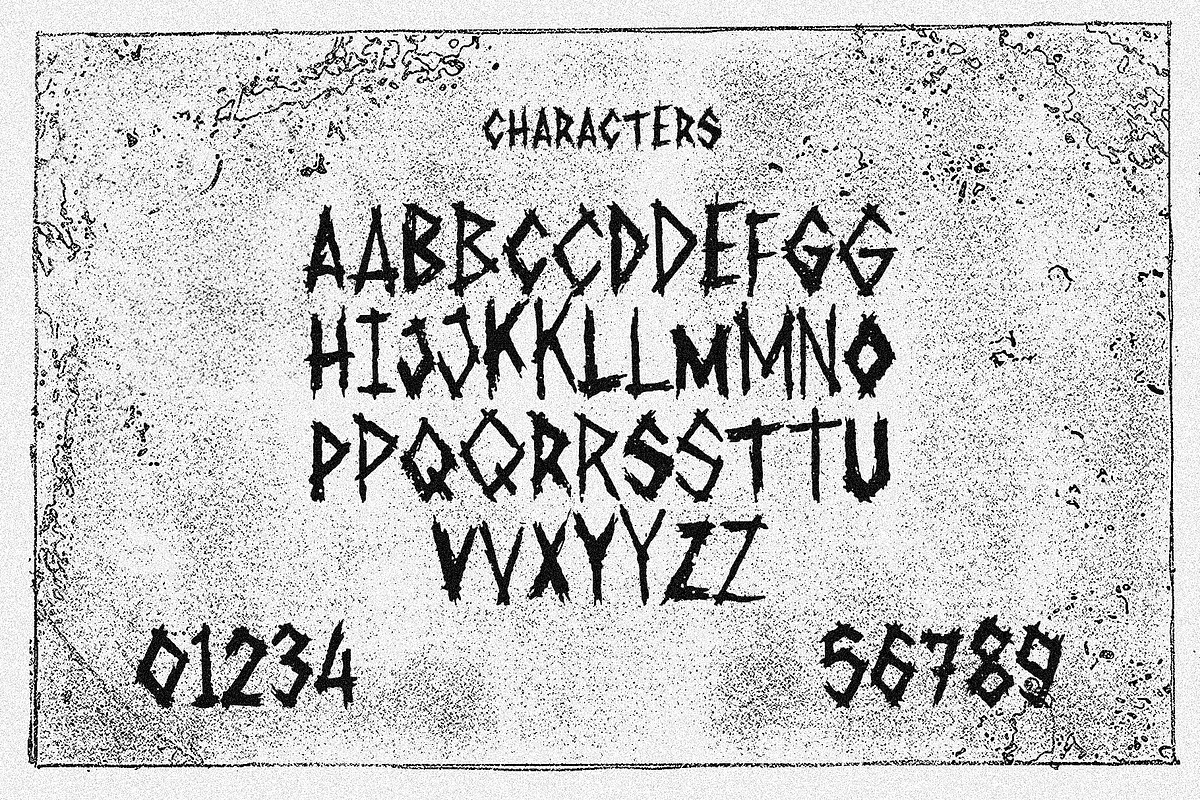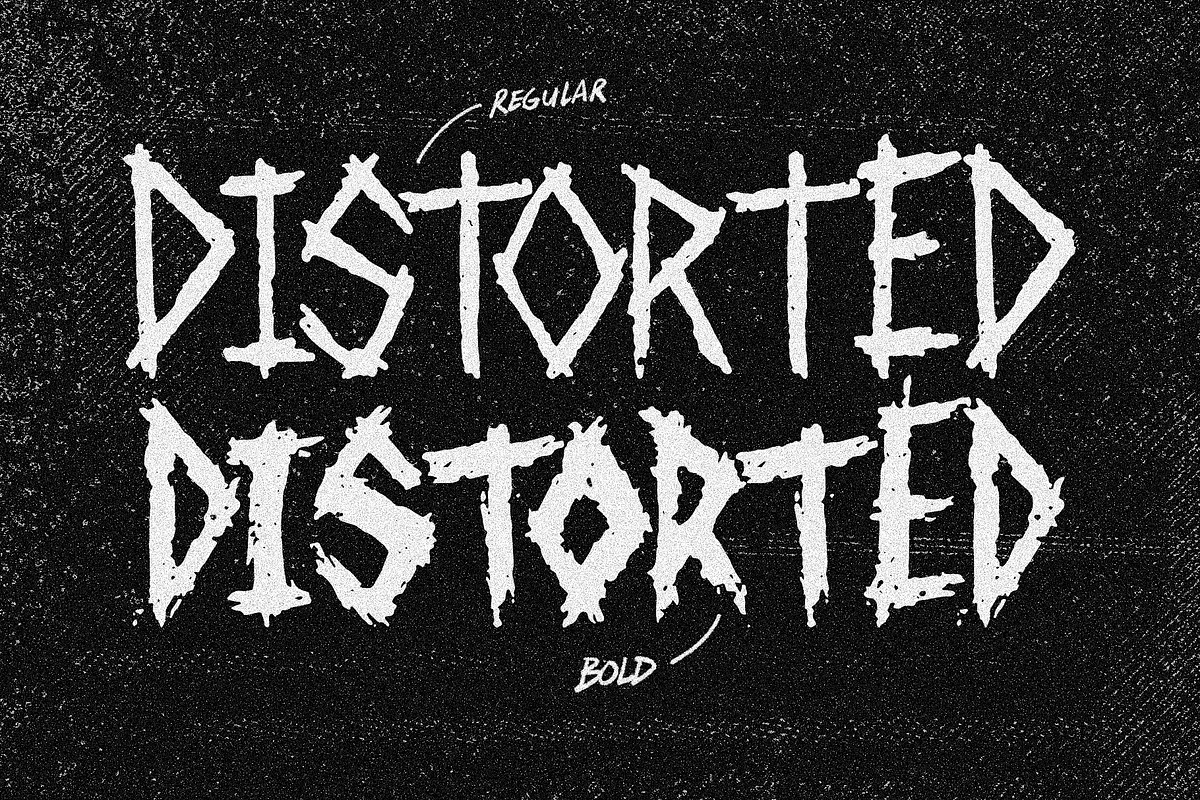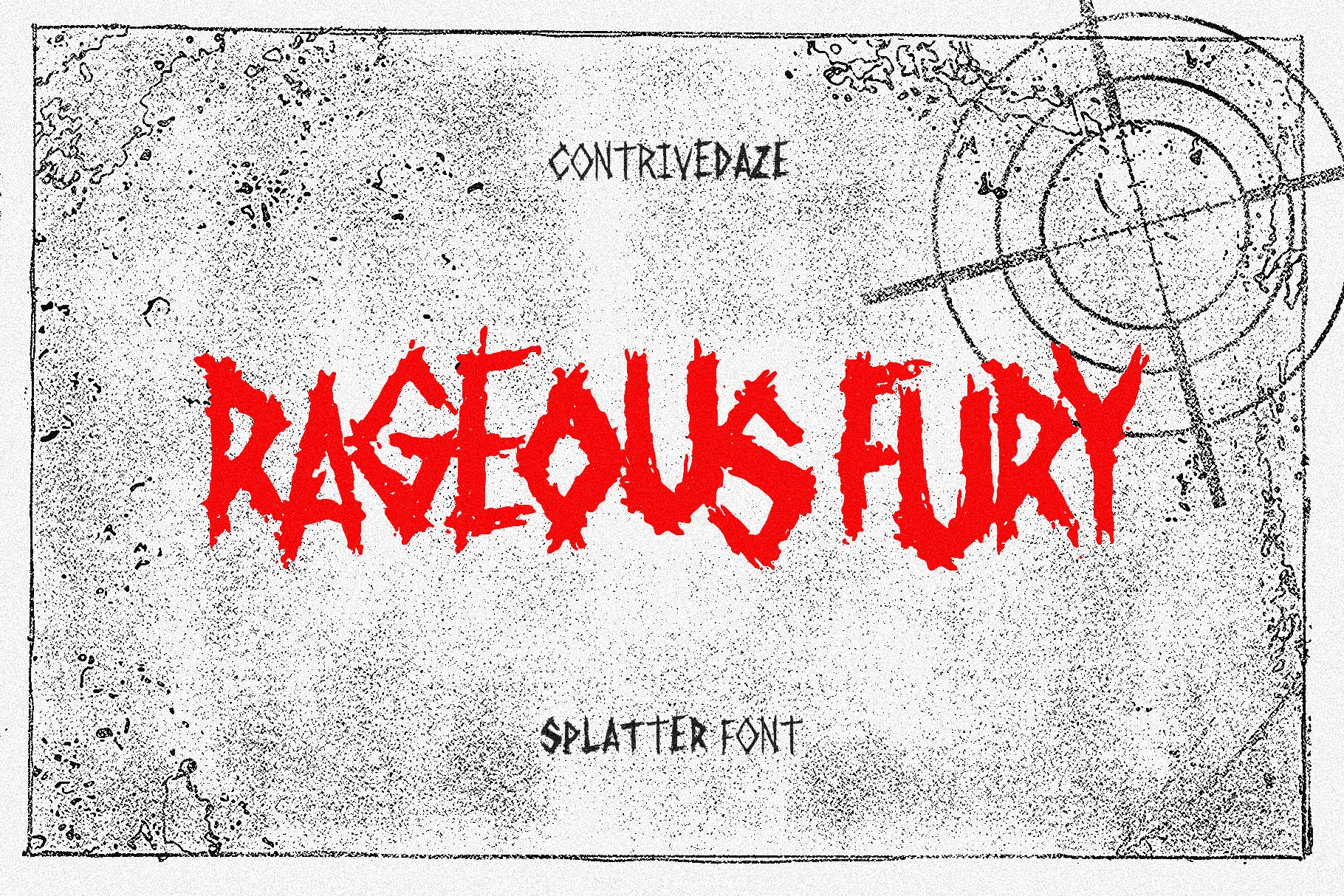
RAGEOUS FURY SPLATTER FONT
RAGEOUS FURY is a raw, aggressive display font inspired by the chaotic visual language of the grindcore and underground extreme music scene.
Built with rough, hand-drawn shapes, irregular edges, and a heavily distressed texture, this typeface captures the raw energy of DIY flyers, demo tapes, bootleg merchandise, and underground gig posters.
RAGEOUS FURY is designed to bring an unpolished, violent, and handmade character to your typography while remaining versatile enough for different underground design projects.